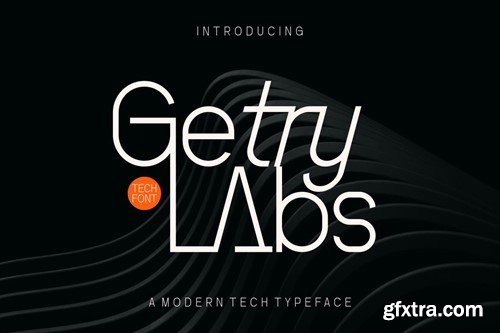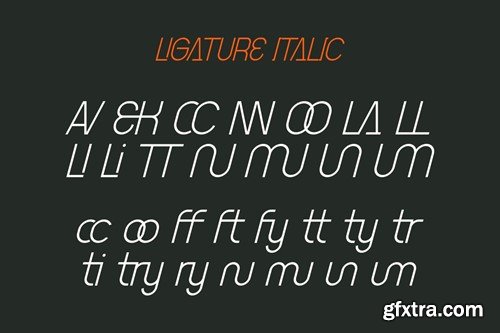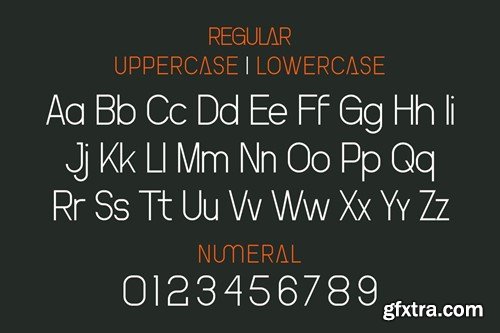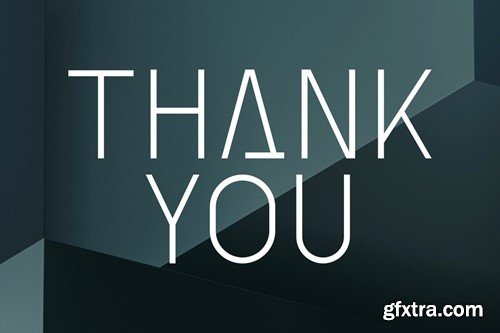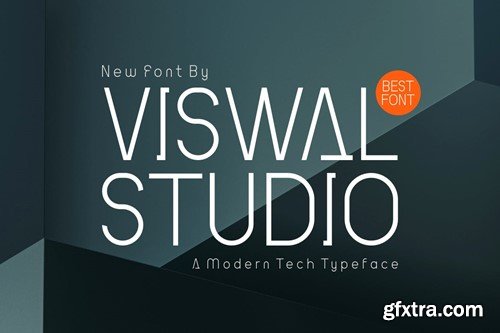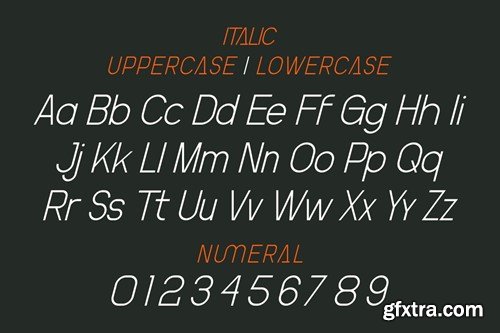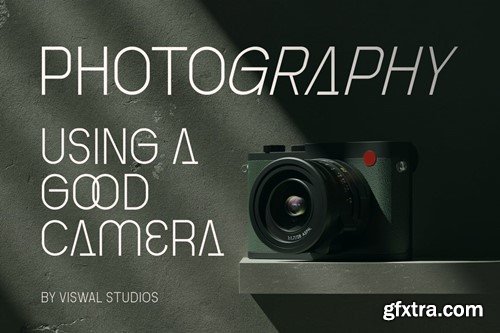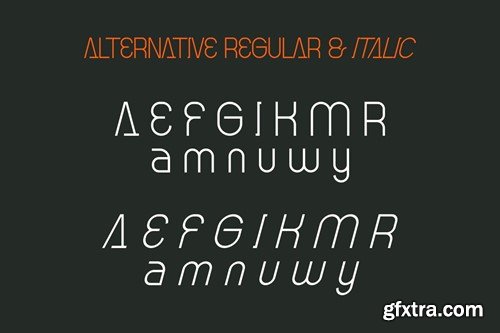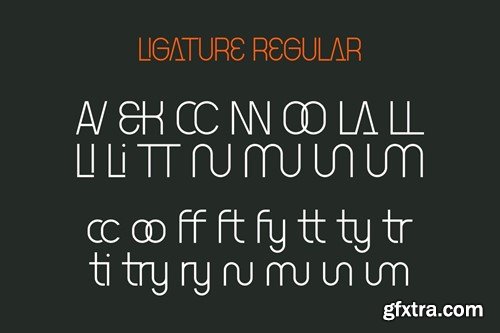
Getry LAbs - Modern Tech Font
Presenting Getry LAbs - Font is suitable for badge, labels, logo, branding, magazine, poster and etc. Our fonts have Uppercase & Lowercase, Numeral & Punctuation, Multilingual support and Opentype Features. For Amazing designs you can mix with other fonts as a complement. File Includes Regular Italic Happy creating with our fonts. Regards, viswal studios